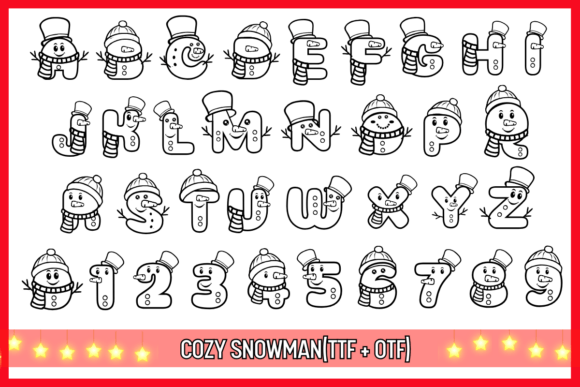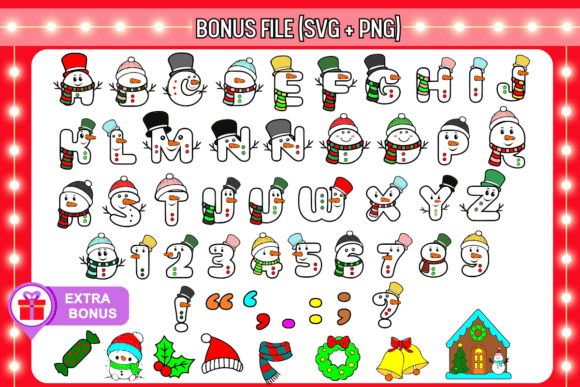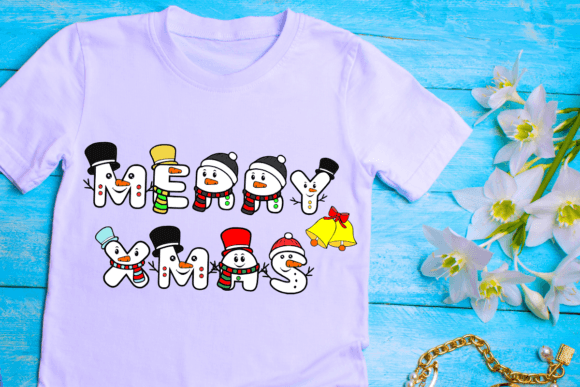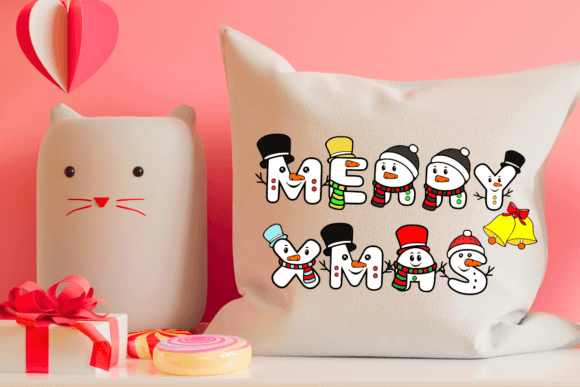
Cozy Snowman Font: Add a Playful Winter Touch to Your Designs
Are you looking for a fun and festive font to add a winter wonderland feel to your designs? Look no further than the Cozy Snowman Font! This delightful font is perfect for holiday cards, festive designs, and anything that needs a cheerful, snowy touch.
What is Cozy Snowman Font?
Cozy Snowman is a decorative font where each letter is shaped like a cute snowman. The letters are designed to resemble snowmen, complete with round bodies, scarves, and hats, giving a playful winter feel. The font is sure to bring a smile to anyone’s face and add a touch of whimsy to your designs.
Features of Cozy Snowman Font
- Unique Lettering Style: Each letter is carefully crafted to look like a mini snowman, complete with a round body, scarf, and hat.
- Playful Winter Feel: The font is designed to evoke a sense of fun and playfulness, perfect for winter and holiday designs.
- Festive and Cheerful: The Cozy Snowman Font is sure to add a cheerful touch to any design, making it perfect for holiday cards, party invitations, and more.
- Perfect for Designers and Crafters: Whether you’re a professional designer or a crafter, this font is perfect for adding a personal touch to your projects.
Uses for Cozy Snowman Font
The Cozy Snowman Font is versatile and can be used for a variety of projects, including:
- Holiday Cards: Add a personal touch to your holiday cards with this fun and festive font.
- Festive Designs: Use the Cozy Snowman Font to create festive designs for party invitations, flyers, and more.
- Crafting Projects: Add a playful touch to your crafting projects, such as scrapbooking, journaling, and card making.
- Social Media Graphics: Use the font to create fun and engaging social media graphics for winter and holiday-themed posts.
Why Choose Cozy Snowman Font?
With so many fonts available, why choose Cozy Snowman Font? Here are a few reasons:
- Unique and Playful: The Cozy Snowman Font is a unique and playful font that will add a touch of whimsy to your designs.
- High-Quality Design: The font is designed with high-quality graphics, ensuring that it looks great in any design.
Tips for Using Cozy Snowman Font
Here are a few tips for using Cozy Snowman Font:
- Use it Sparingly: Use the font sparingly to add a touch of whimsy to your designs. Overusing the font can make your design look cluttered.
- Pair it with Other Fonts: Pair the Cozy Snowman Font with other fonts to create a unique and interesting design.
The Cozy Snowman Font is a fun and festive font that’s perfect for adding a playful winter touch to your designs. With its unique lettering style, playful winter feel, and festive and cheerful vibe, it’s sure to bring a smile to anyone’s face. Whether you’re a designer or crafter, this font is perfect for holiday cards, festive designs, and anything that needs a cheerful, snowy touch.